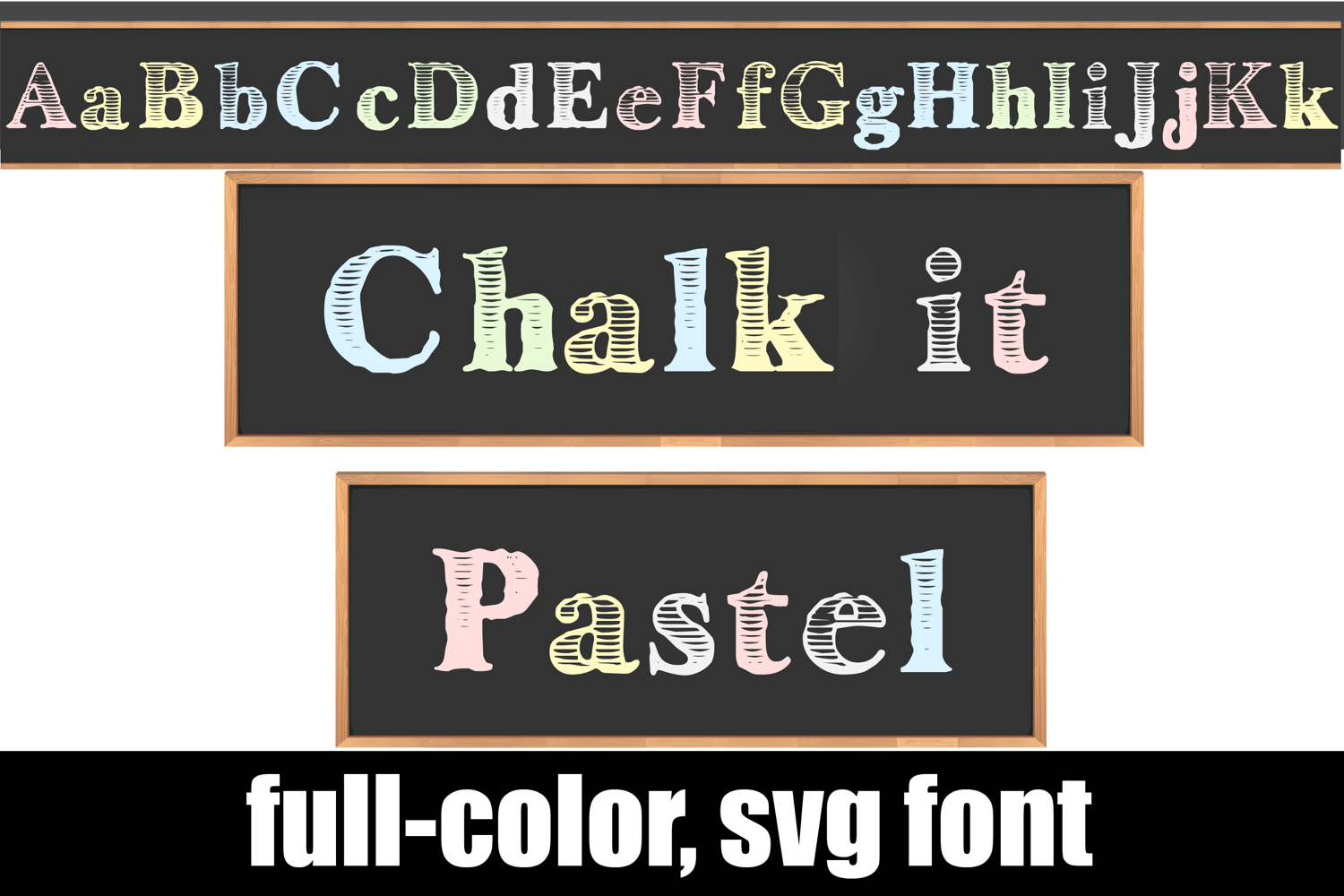
Chalk It Pastel Color Font
This full-color, chalkboard style font is in pastel colors. There is an alt case with additional colors of all the letters you can access through your system's character maps. Use rectangle brackets for chalkboard ends and underscore for blank chalkboard.